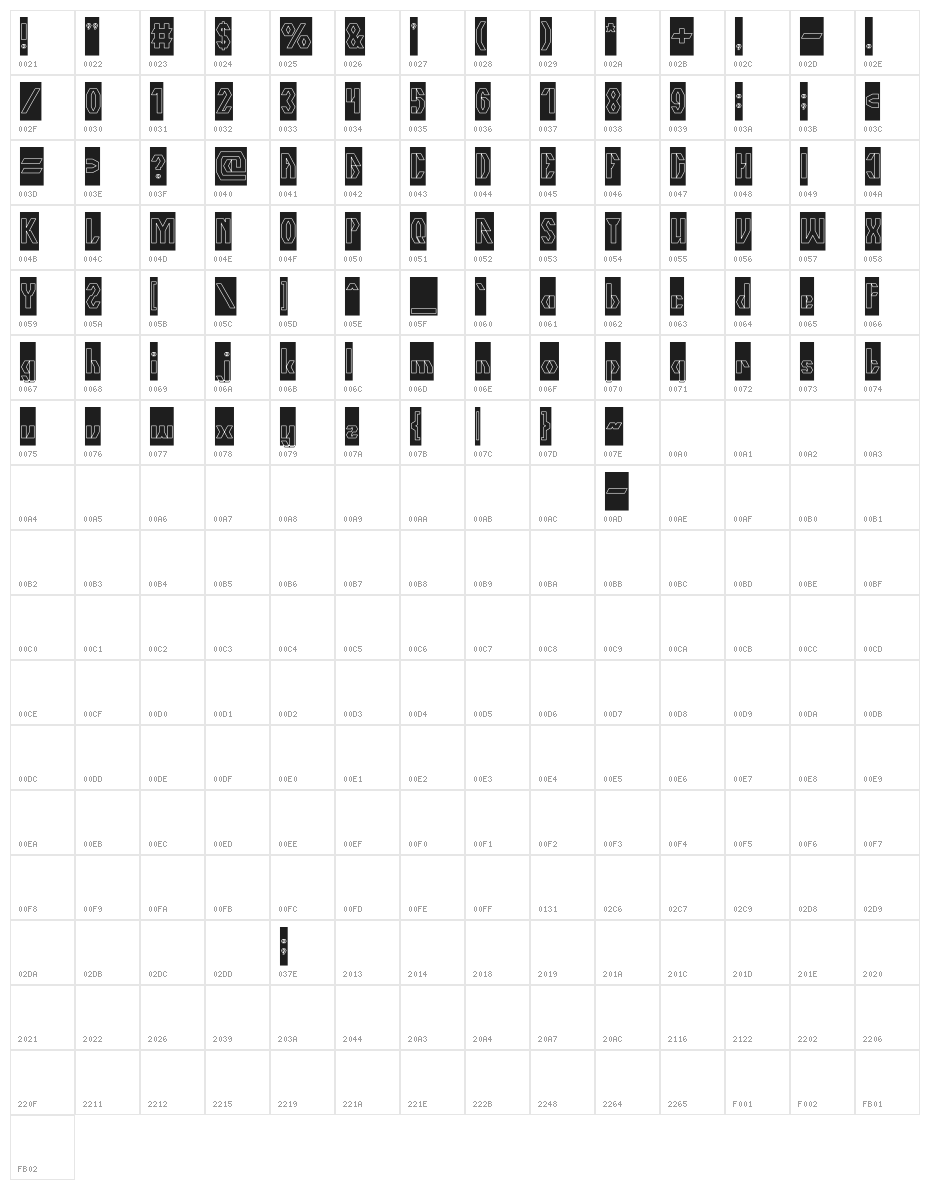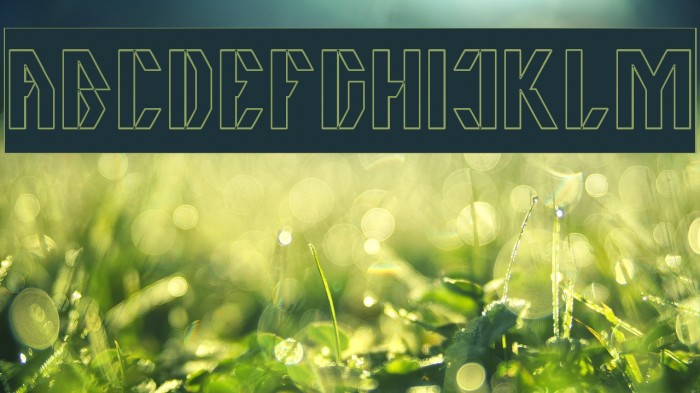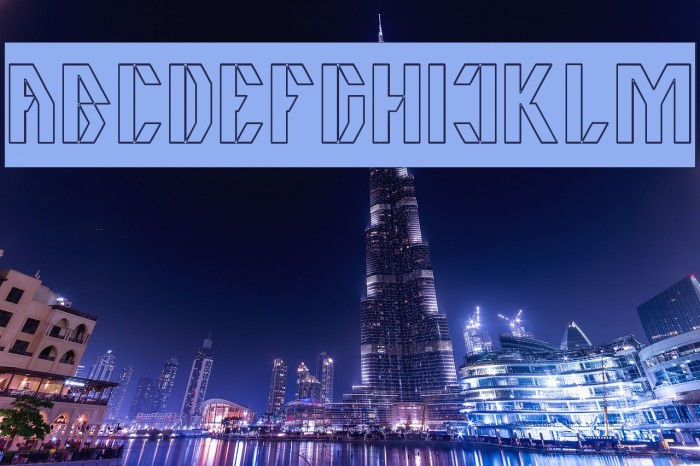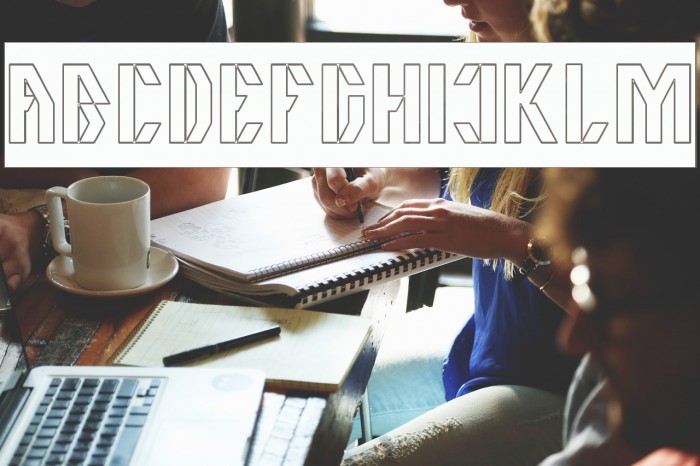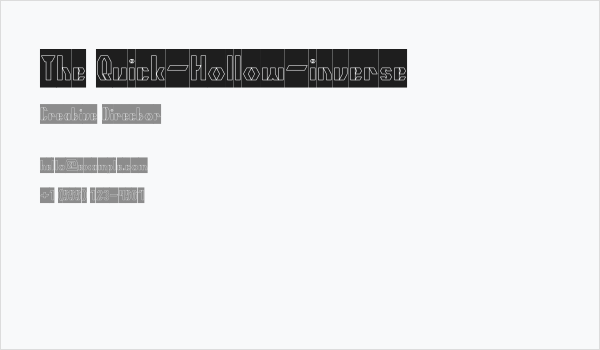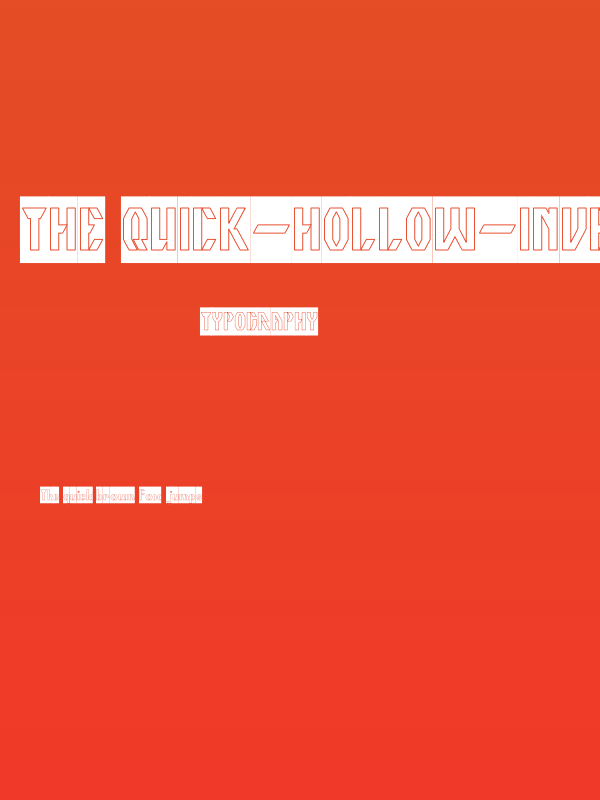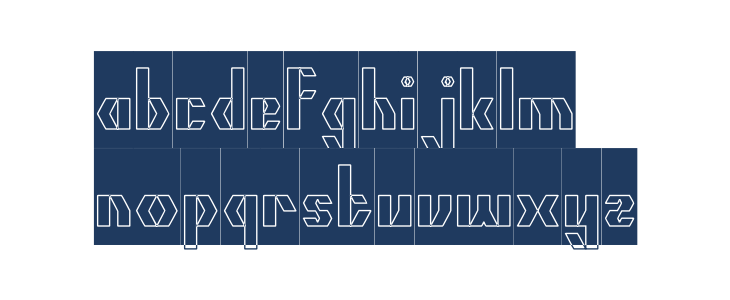
The Quick-Hollow-inverse Font
The Quick-Hollow-inverse Description
This font features a unique hollow design with an inverse style, where the interior of each character is transparent, creating a striking outline effect. The geometric shapes and sharp angles give it a modern and edgy appearance. The uppercase and lowercase letters maintain a consistent style, with the uppercase being more pronounced. Numbers and special characters follow the same design principles, ensuring uniformity across all glyphs. The font's distinct appearance makes it ideal for eye-catching designs where a bold statement is needed.
| Proposed Projects | Ideal for branding, posters, digital artwork, and any project requiring a bold, modern aesthetic. |